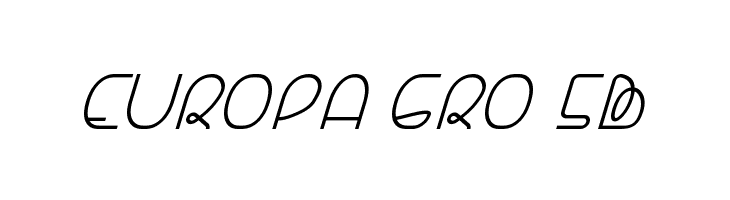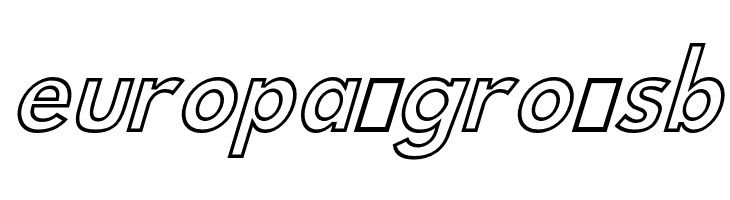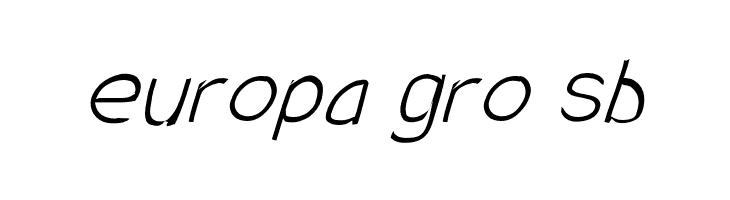
( Fonts by Zetafonts )
A sleek, ultra-light font with geometric precision and a minimalist aesthetic.
( Fonts by Diego ChenBrimac )
An ultra-thin, elongated font with a modern and artistic style.
( Fonts by Manuel Ramos )
A sleek, modern font with elongated, narrow letterforms and a sophisticated appearance.
( Fonts by Manuel Ramos )
A sleek, modern font with thin, elongated letterforms and tight spacing.
( Fonts by Xerographer Fonts )
A modern, italicized font with smooth, flowing lines and a stylish appearance.
A bold, condensed, and oblique font with a modern and dynamic style.
A modern, extra-condensed oblique font with a ghostly outline.
A modern, condensed, and oblique font with a ghostly outline style.
A sleek, modern, and slightly italicized font with a hairline weight.
A sleek, thin, italicized font with a modern and elegant design.